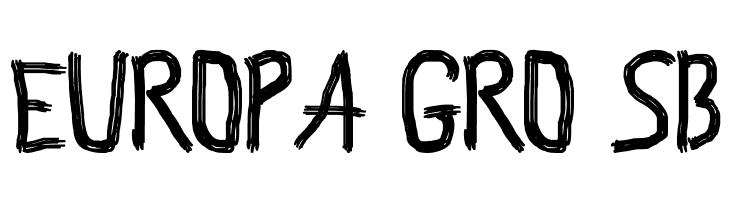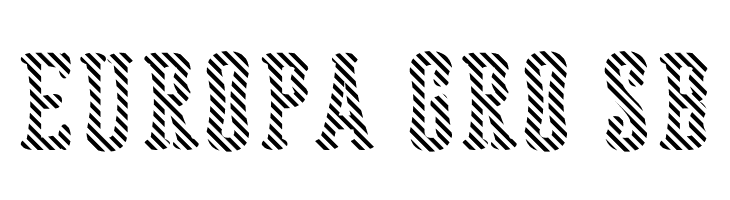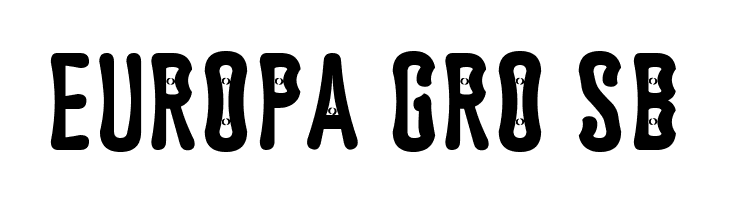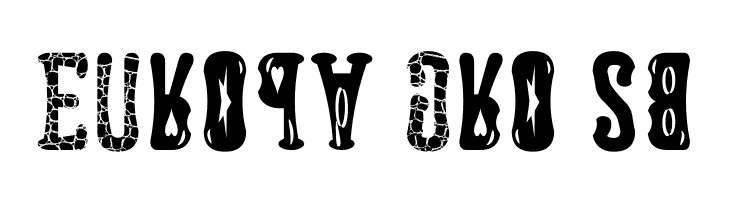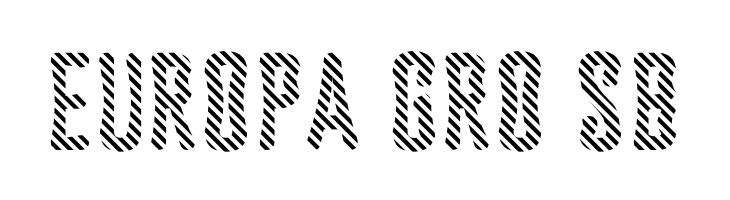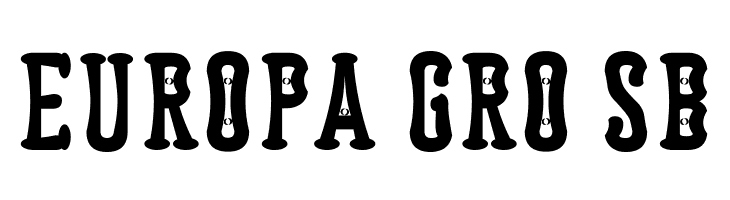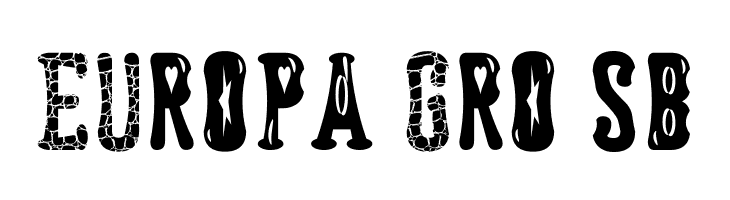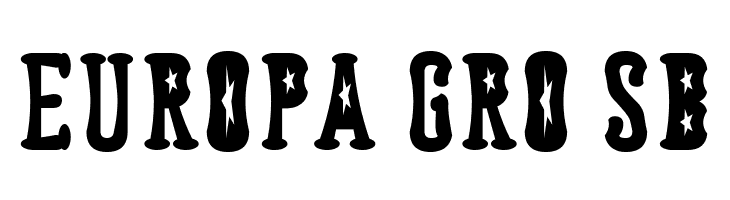
• Astakhov Brush Hooliganism
A bold, brush-style font with an energetic and rebellious vibe.
• Astakhov Dished
A bold, playful font with a hand-drawn feel and retro-modern aesthetics.
• Astakhov Dished FS Serif
A bold, decorative font with star cutouts in each character, perfect for eye-catching designs.
• Astakhov Dished ChAoS!
A bold, eclectic font with varying patterns and textures, offering a chaotic yet captivating style.
• Astakhov Dished ChAoS2!
A bold, decorative font with unique textures and patterns.
• Astakhov Dished DL
A bold, decorative font with diagonal stripes for a modern, dynamic look.
• Astakhov Dished DL Serif
A bold, striped decorative font ideal for eye-catching designs.
• Astakhov Dished E
A bold, playful font with unique cut-out shapes and rounded strokes.
• Astakhov Dished E Serif
A bold, decorative serif font with a vintage and playful style.
• Astakhov Dished E-F
A playful, bold font with rounded, cartoonish characters.